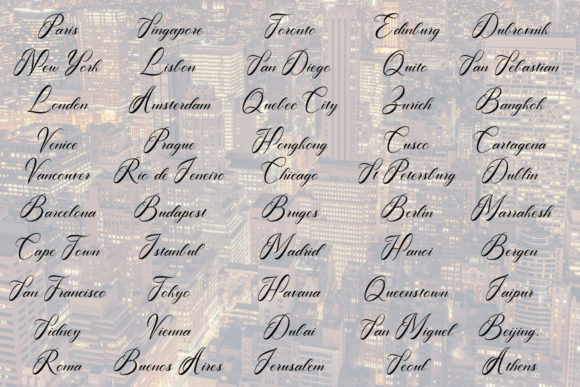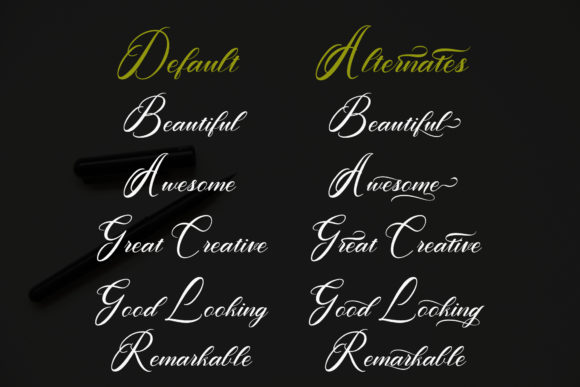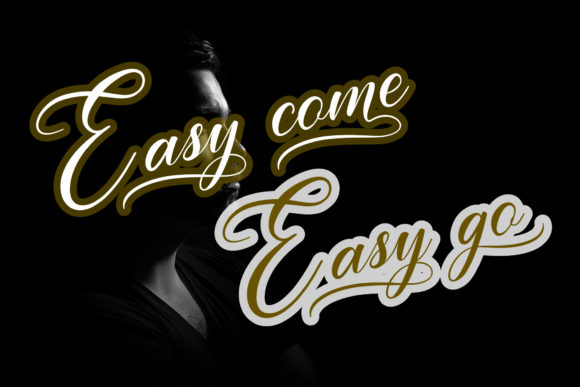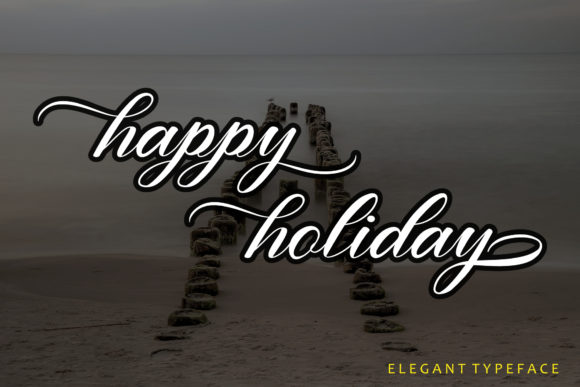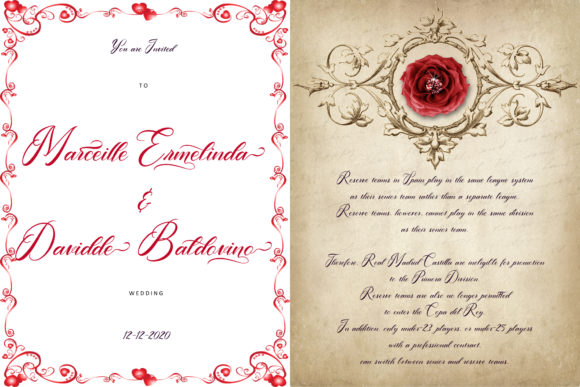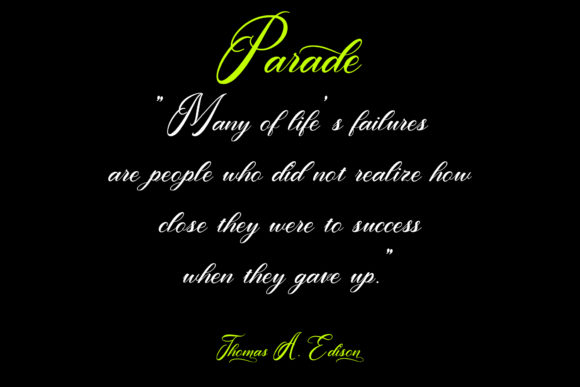
Introduction to Firsthand Calligraphy Font Font
Fonts play a crucial role in design, and the Firsthand Calligraphy Font font is a typeface that brings both character and versatility to any project. Whether you’re working on a branding project, a website, or a print design, the Firsthand Calligraphy Font font offers a unique style that can elevate your work.
Firsthand Calligraphy is an enchanting handwritten font.
This versatile script font has a wide spectrum of applications ranging from greeting cards to headlines and is guaranteed to add a romantic feel to your next project This font is PUA encoded which means you can access all of the beautiful glyphs and swashes with ease.
Key Features of Firsthand Calligraphy Font Font
Why Choose Firsthand Calligraphy Font Font?
The Firsthand Calligraphy Font font is more than just a typeface – it’s a design tool that helps you communicate your message with style and clarity. Its unique character set and versatile design make it suitable for a wide range of applications, from elegant invitations to bold headlines.
With its carefully crafted letterforms and balanced proportions, the Firsthand Calligraphy Font font ensures readability and visual appeal across all mediums.
What makes Firsthand Calligraphy Font font special?
The Firsthand Calligraphy Font font stands out with its unique design, exceptional readability, and versatility across various design applications.